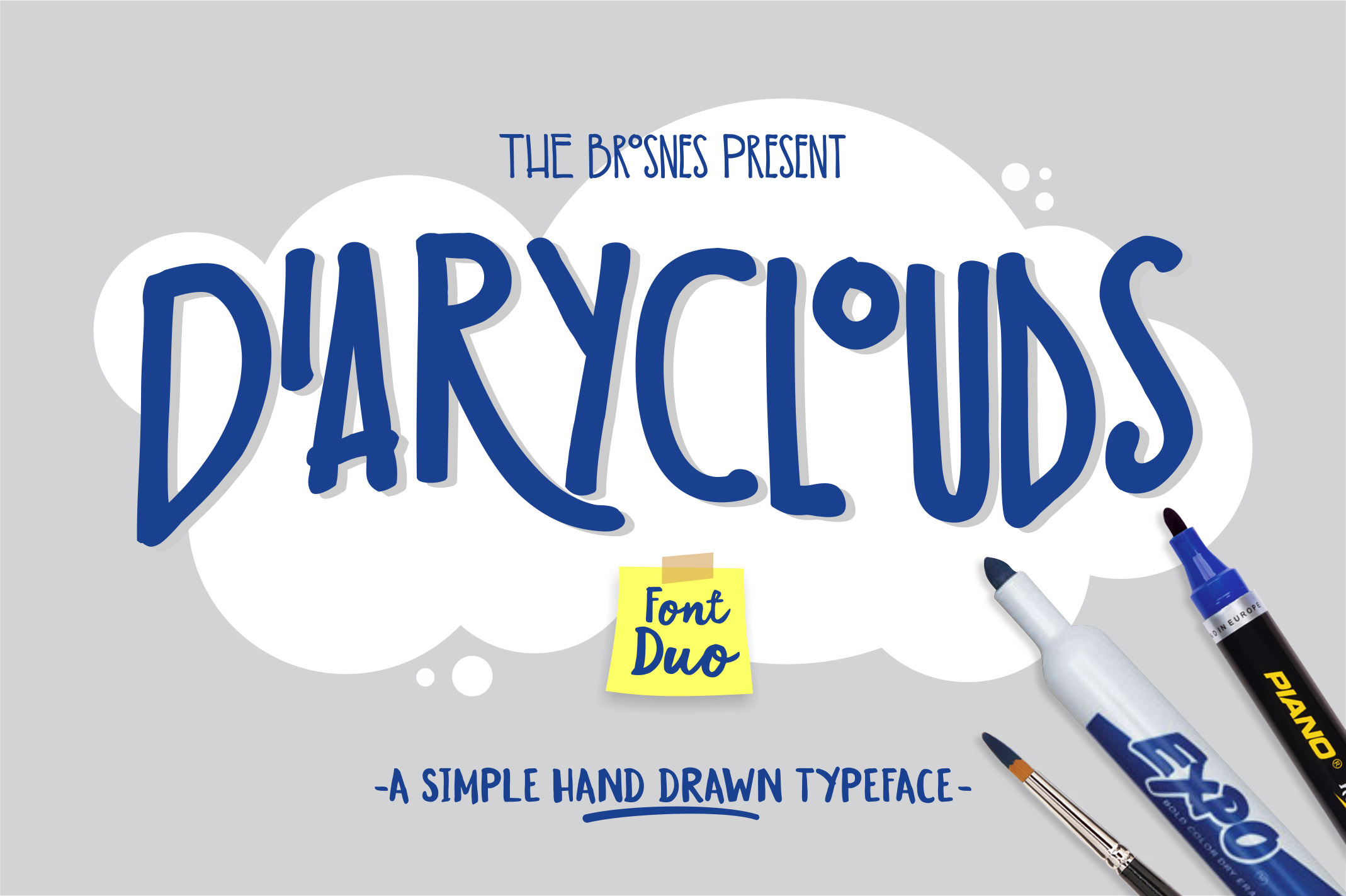
Diaryclouds typeface
Diaryclouds Typeface is font duo from The Brosnes Design Co. was created with 2 hand drawn typeface - marker & paint brush characters, those expression was created simple, casual, arty and inky.
Diaryclouds Typeface includes a full set of capital and lowercase letters, as well as multi-lingual support, currency figures, numerals, punctuation & some extra glyphs. To create the beautiful combination, just mix the uppercase and lowercase then mix with the alternative glyphs.